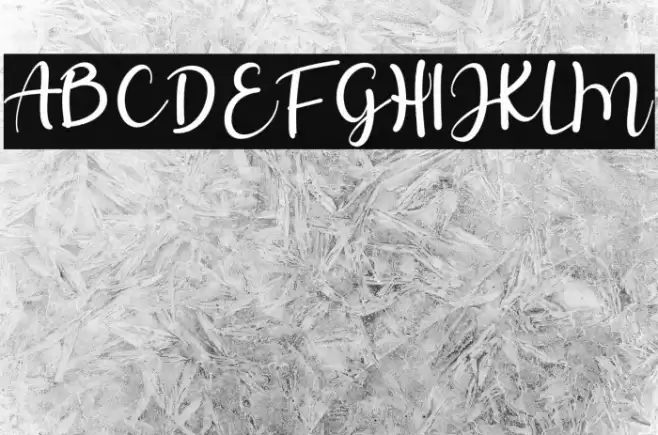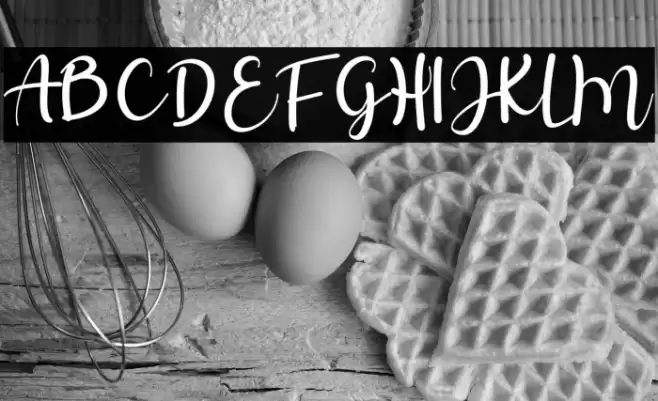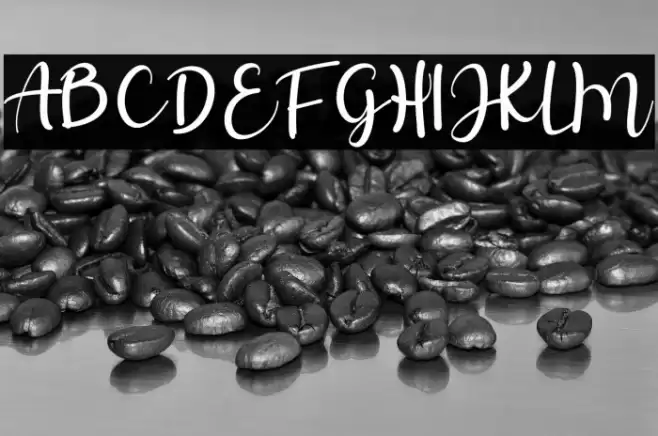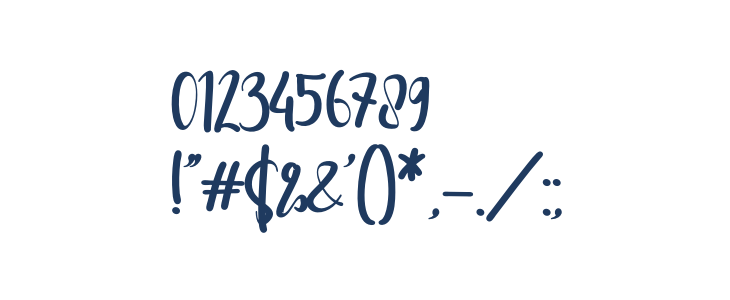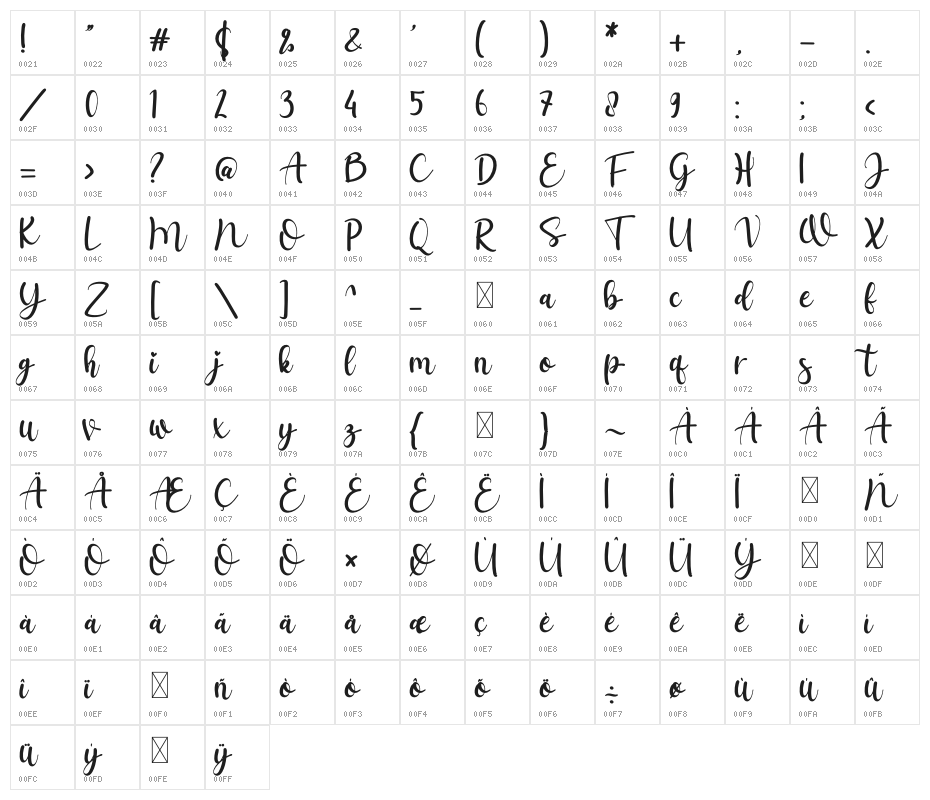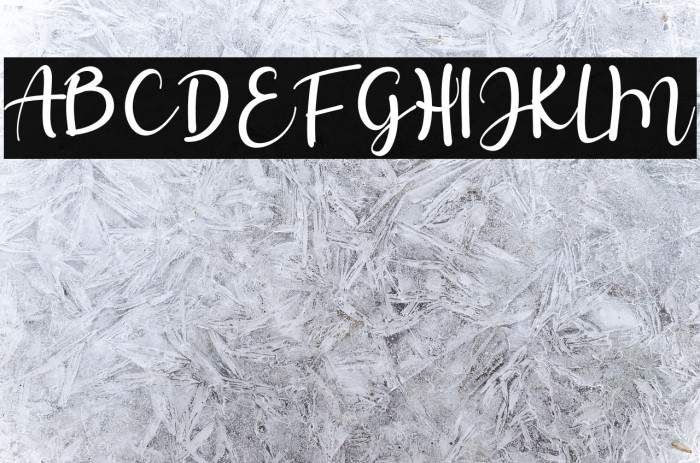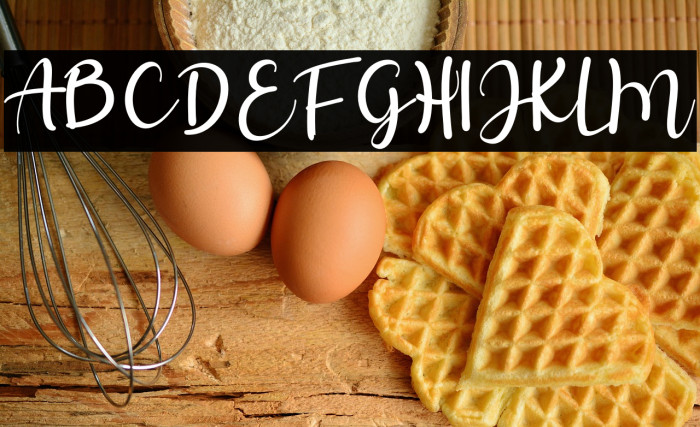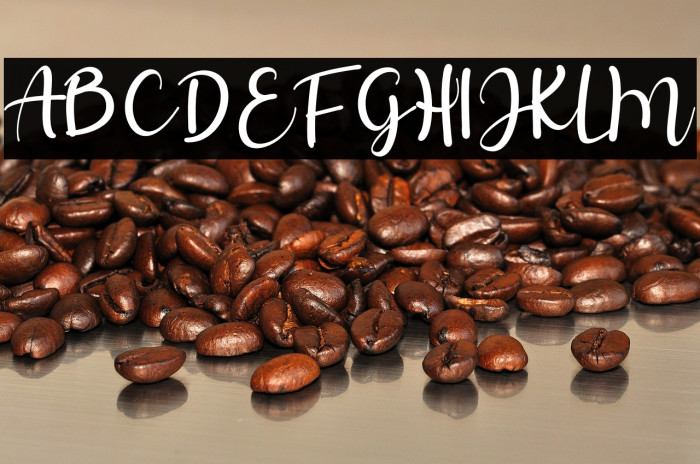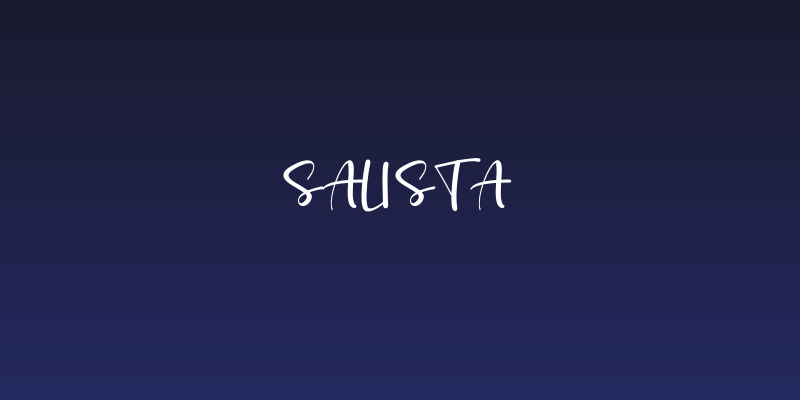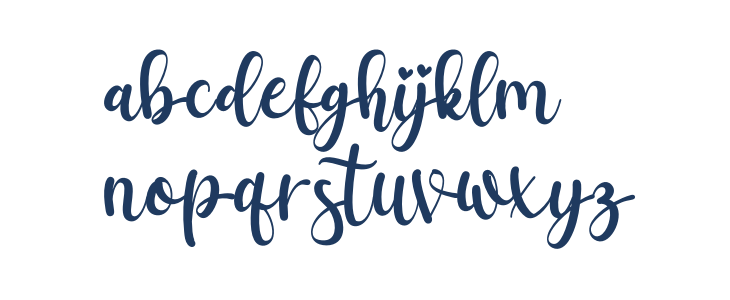
Salista Font
Salista Description
This font features a lively and flowing script style, characterized by its elegant curves and smooth transitions. The uppercase letters are bold and expressive, with a playful yet sophisticated flair. The lowercase letters maintain a consistent flow, enhancing readability while retaining a unique charm. Numbers and special characters are designed to complement the overall aesthetic, ensuring versatility across various applications. The strokes are moderately thick, providing a balanced contrast that highlights the font's dynamic nature. This font is ideal for projects that require a personal touch, such as invitations, branding, and creative designs.
A lively and flowing script font with elegant curves and smooth transitions from Uncategorized fonts.
- Font: Salista
- Proposed Projects: Ideal for invitations, branding, creative designs, and projects requiring a personal touch.
- Use Case: Logos, Headlines, Invitations